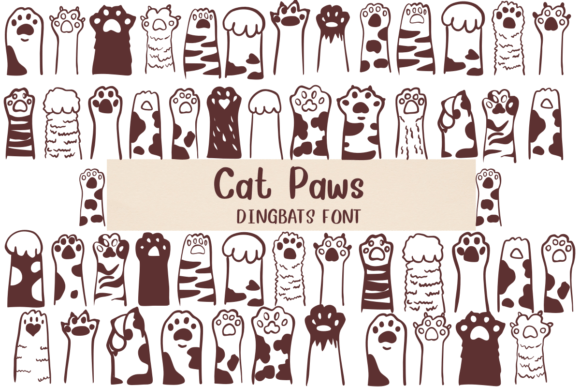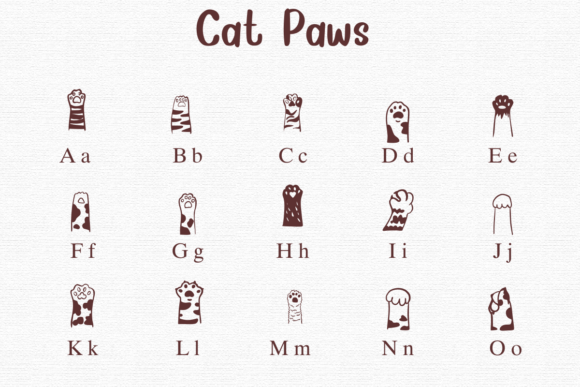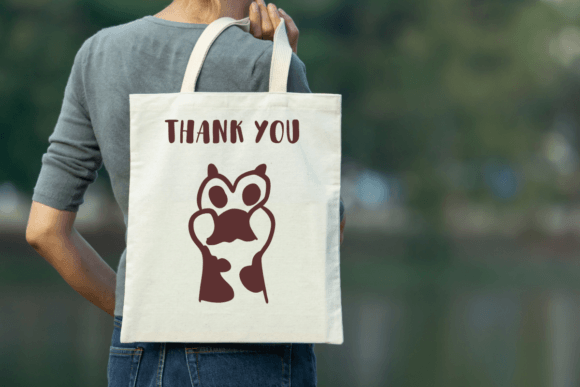
Cat Paws Font
Cat Paws is a playful font featuring cute cat paw prints. Instead of letters, each character shows a different paw design, perfect for adding a fun, feline touch to your projects.